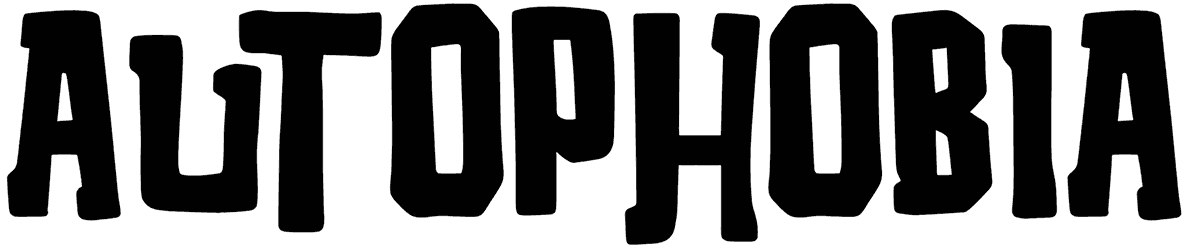
Autophobia Font
Once a year, Halloween comes, in which you need to design flyers, posters, and all sorts of different stuff with a creepy mood that a Halloween font would come in handy. Autophobia is a perfect example that would work perfectly for your project.